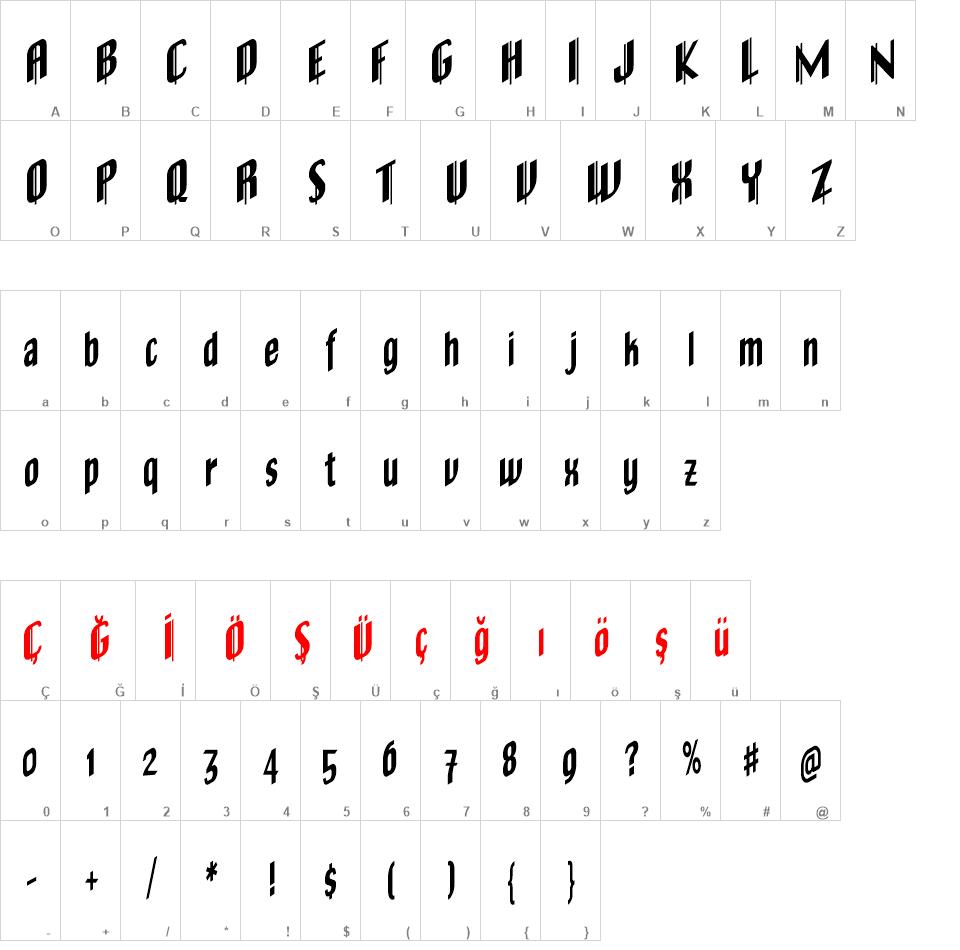
Olde Chicago font
The computer font Olde Chicago was created by Harold Lohner c. 1998.
Adapted from Chicago, of course, the classic Macintosh screen font which is ? 1990-91 Apple Computer Inc. ? 1990-91 Type Solutions Inc. ? 1990-91 The Font Bureau Inc.